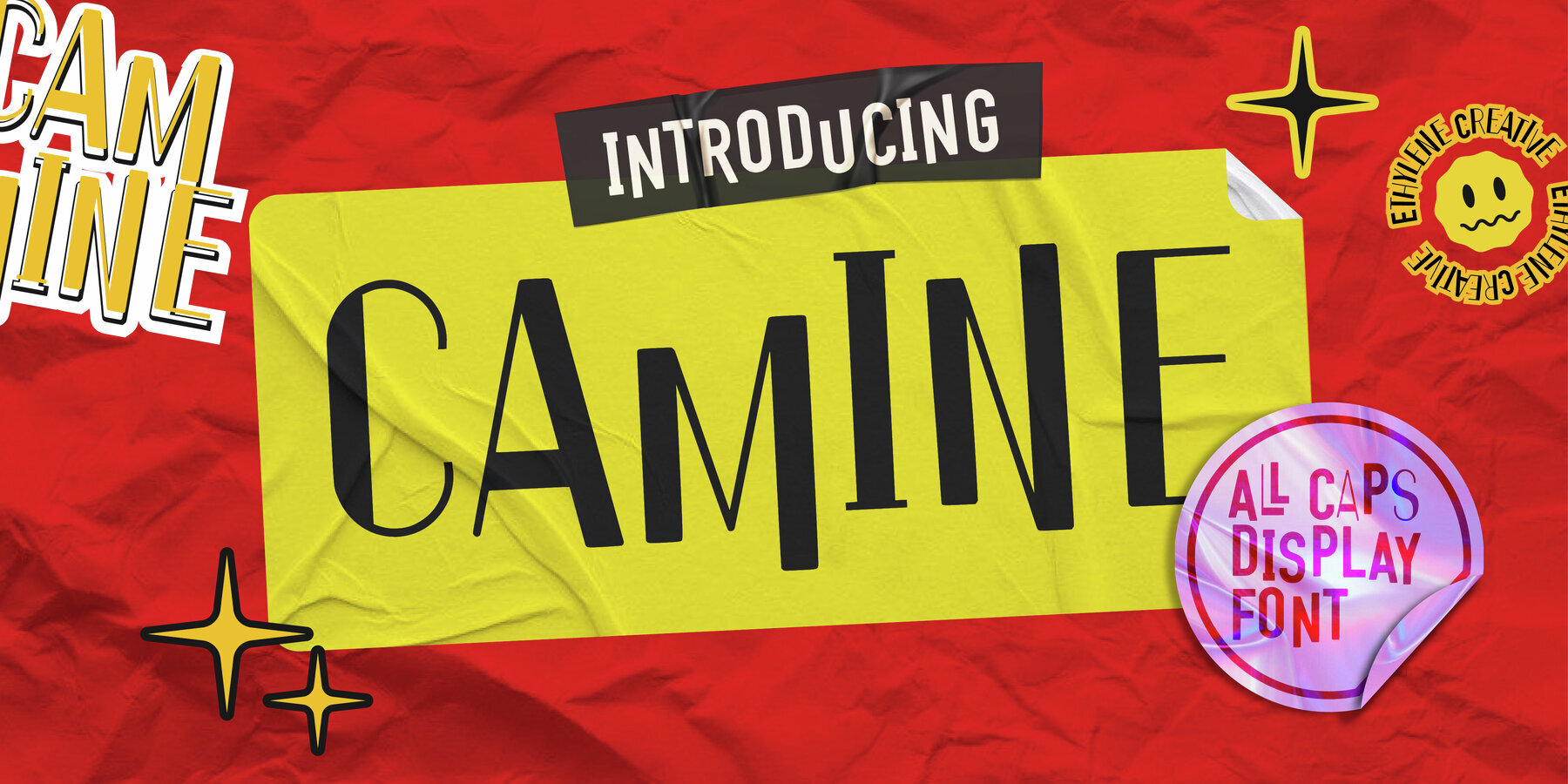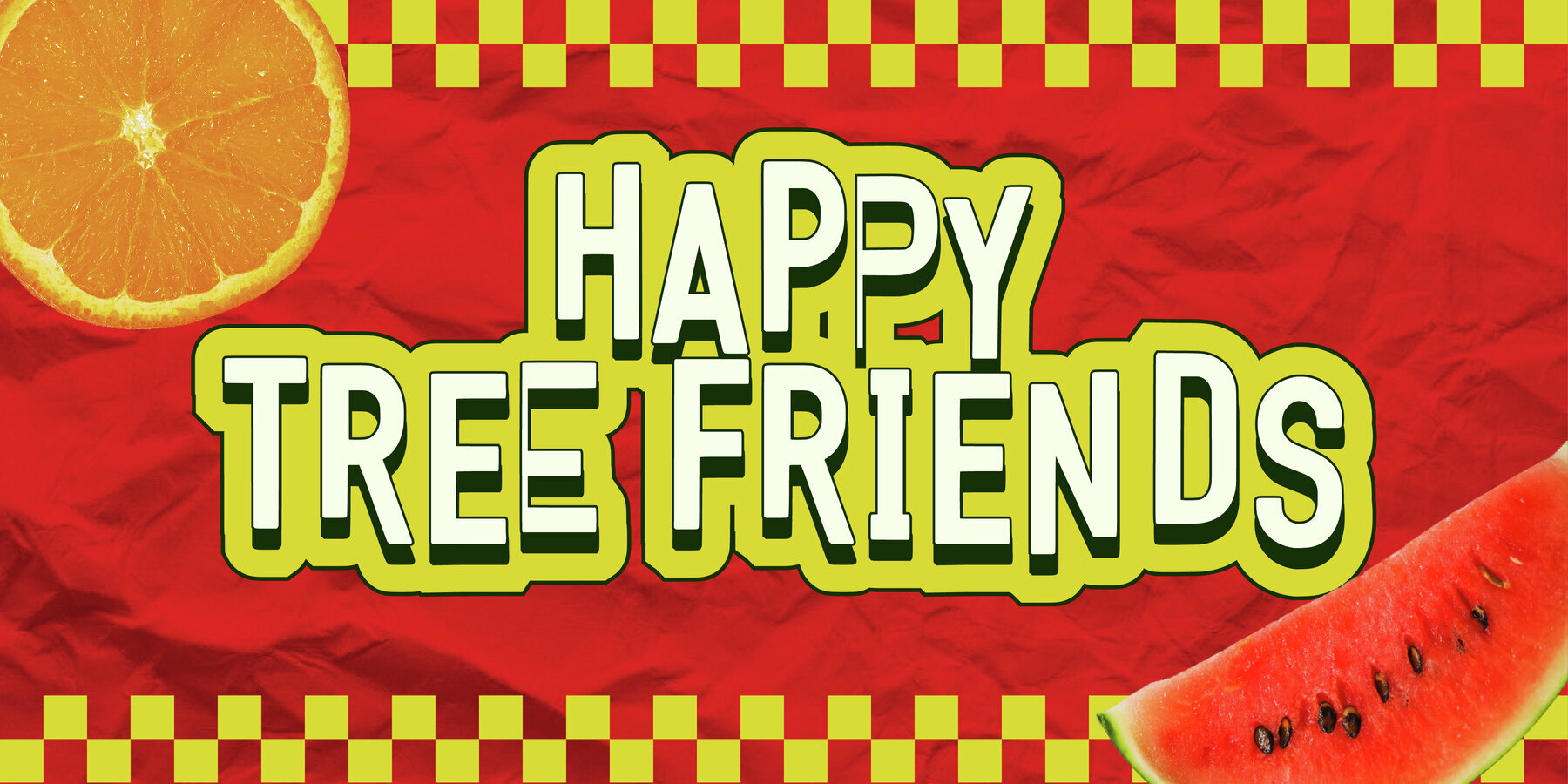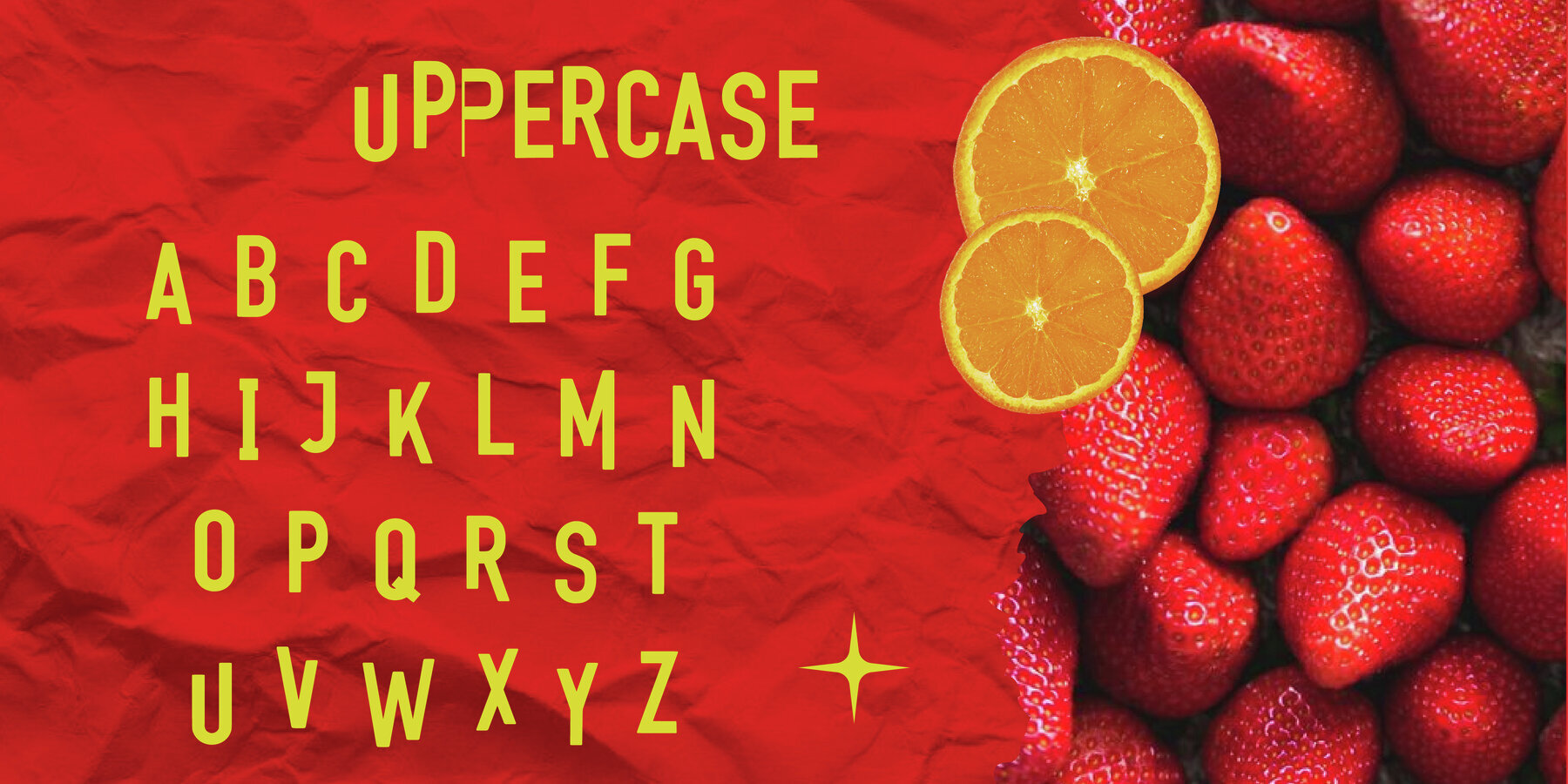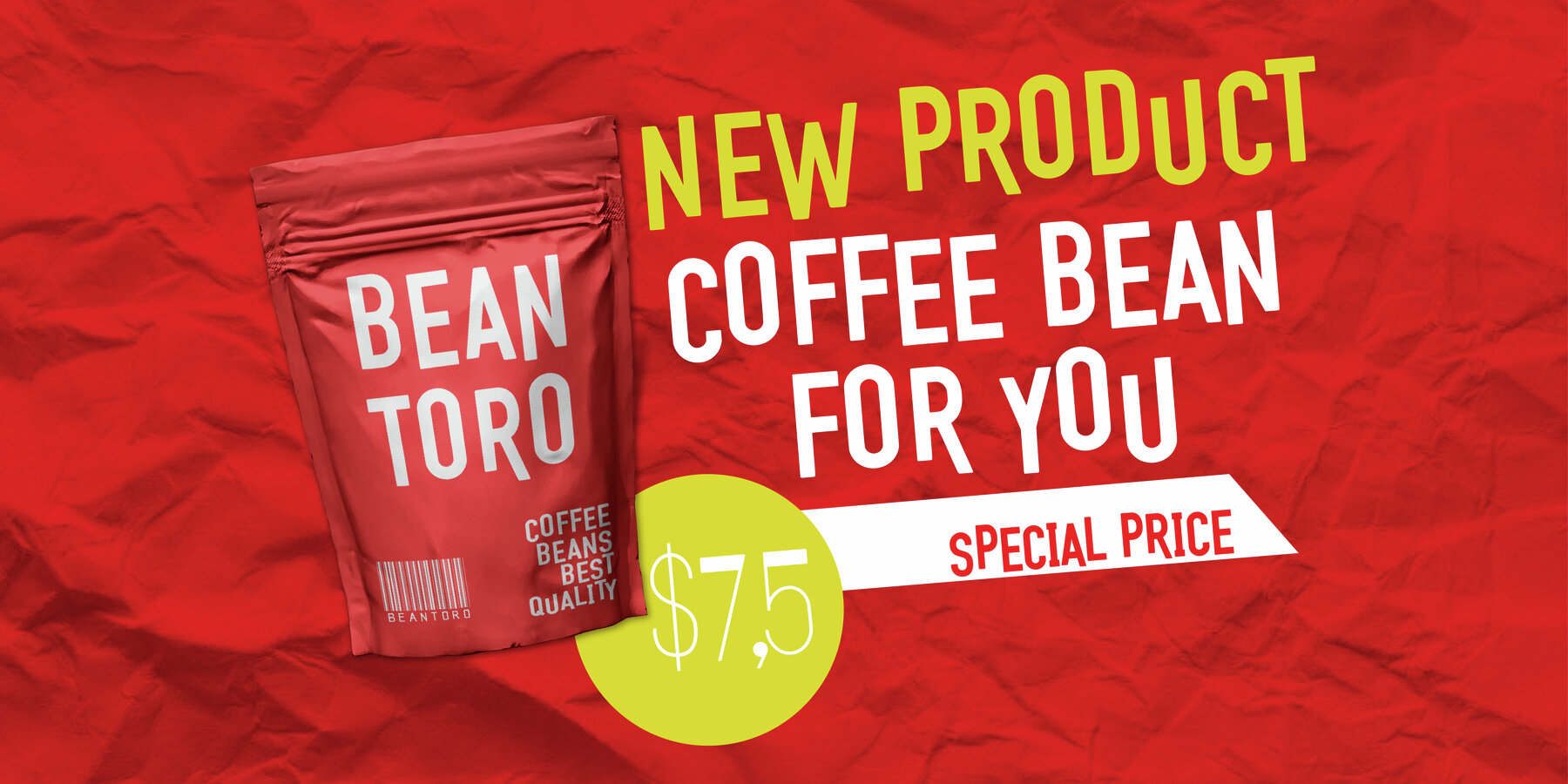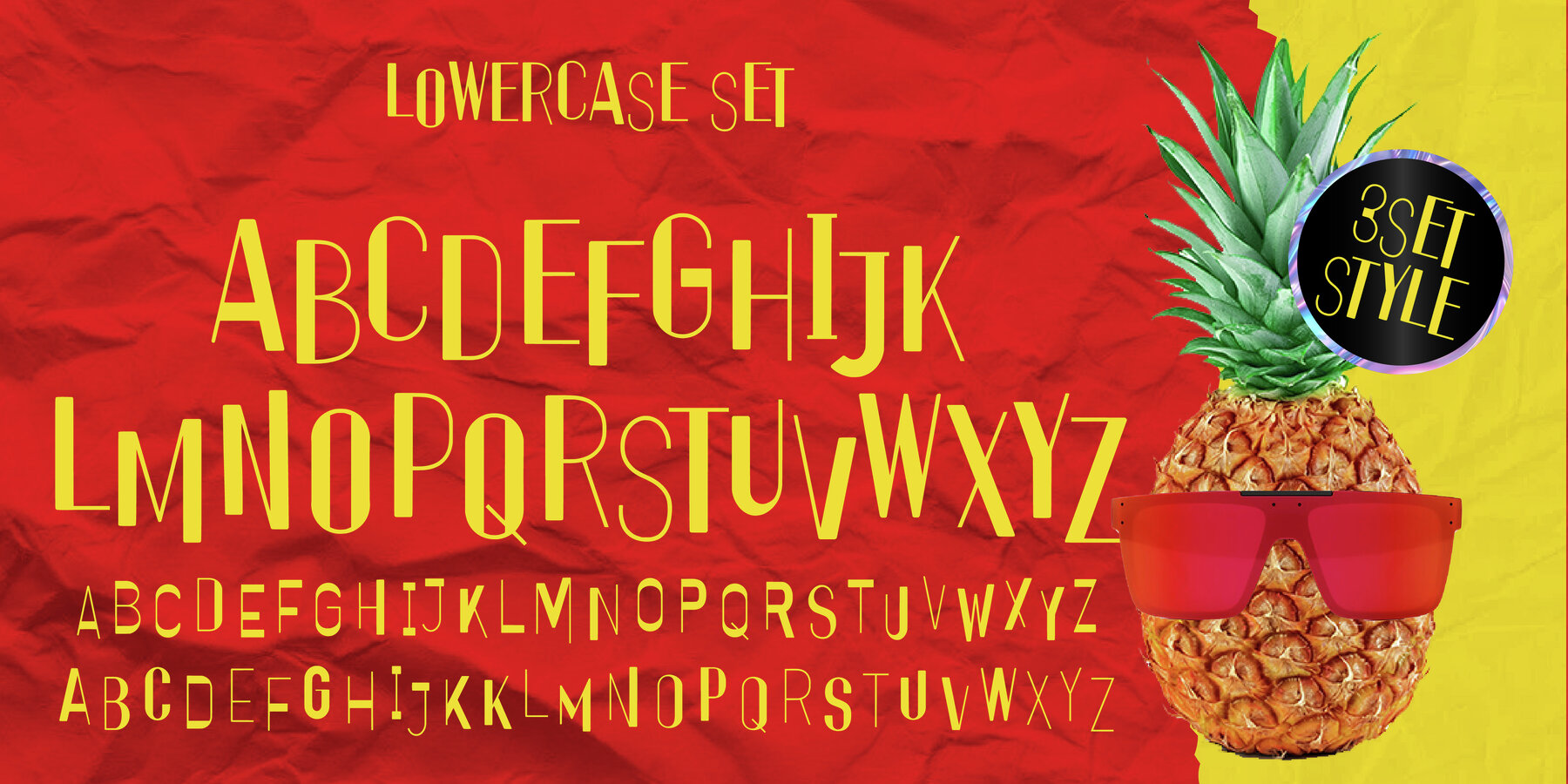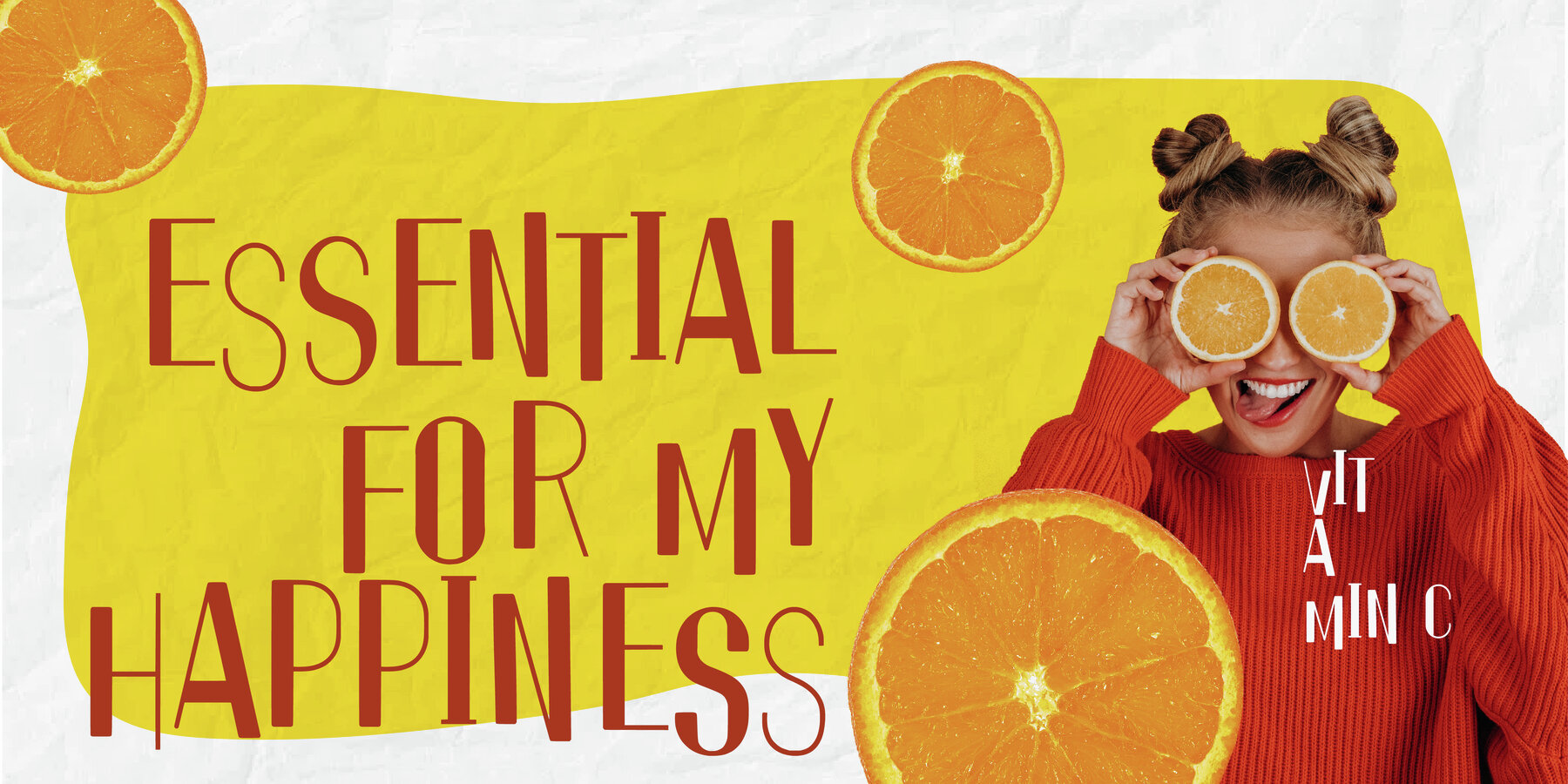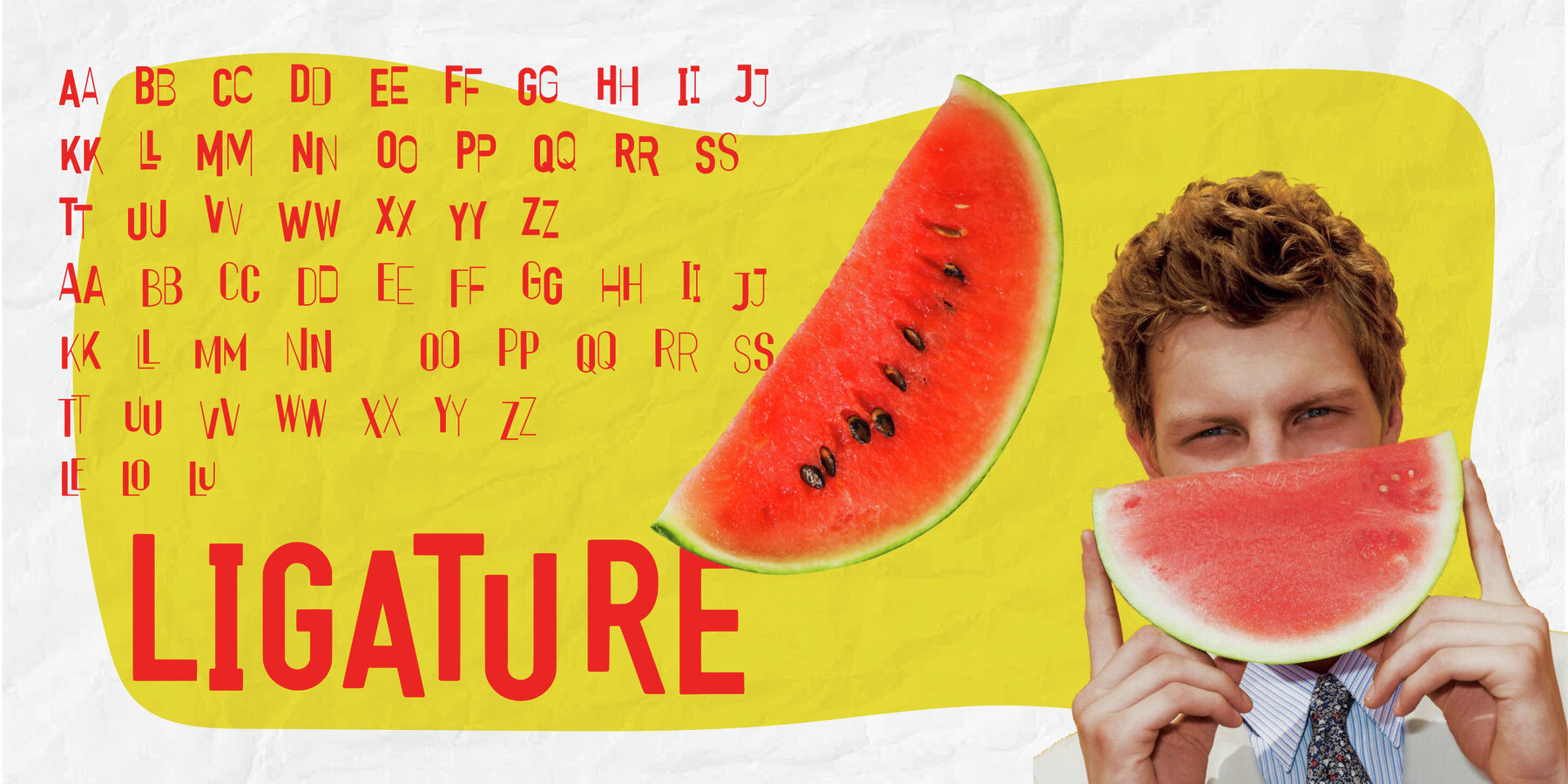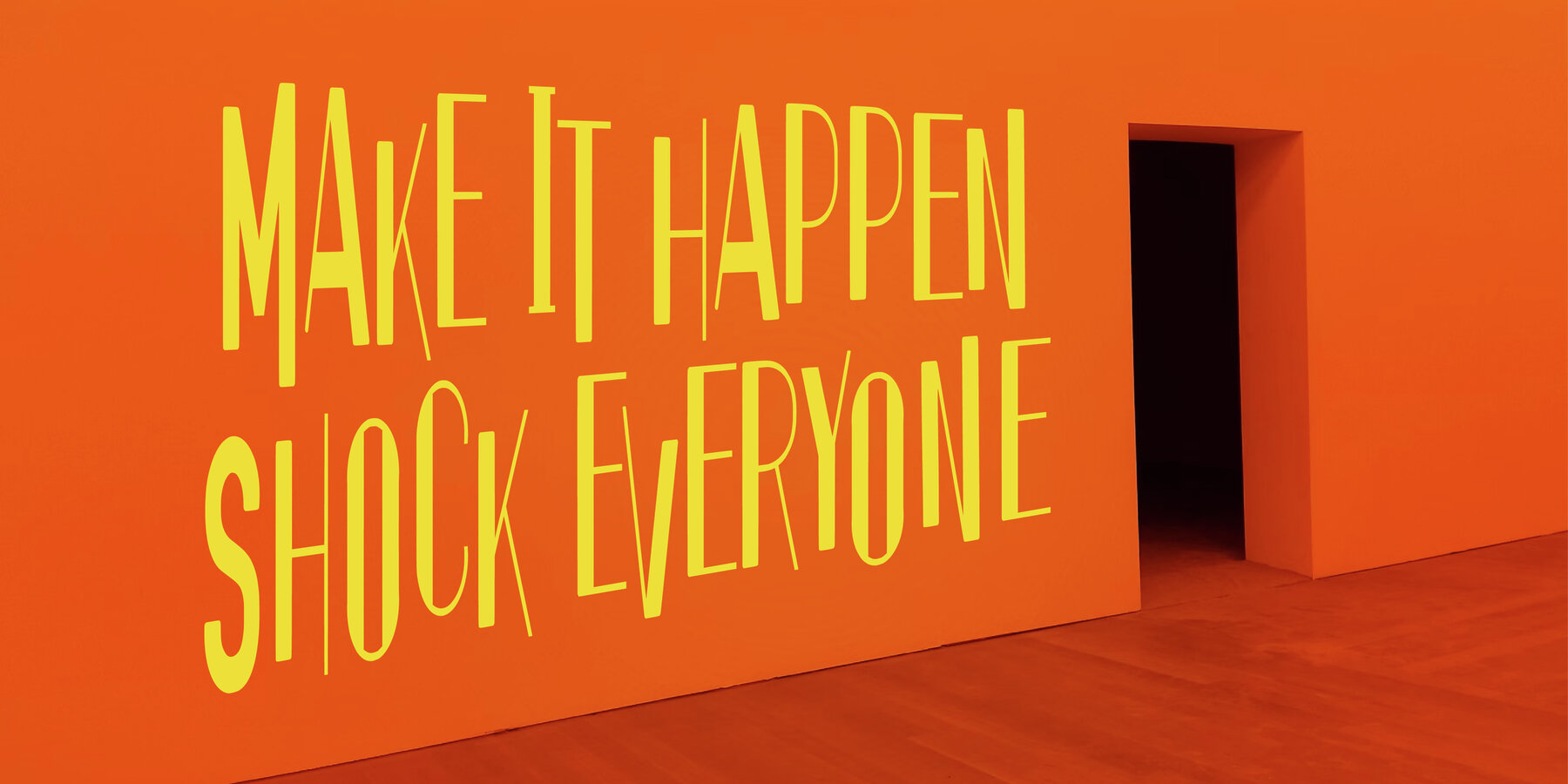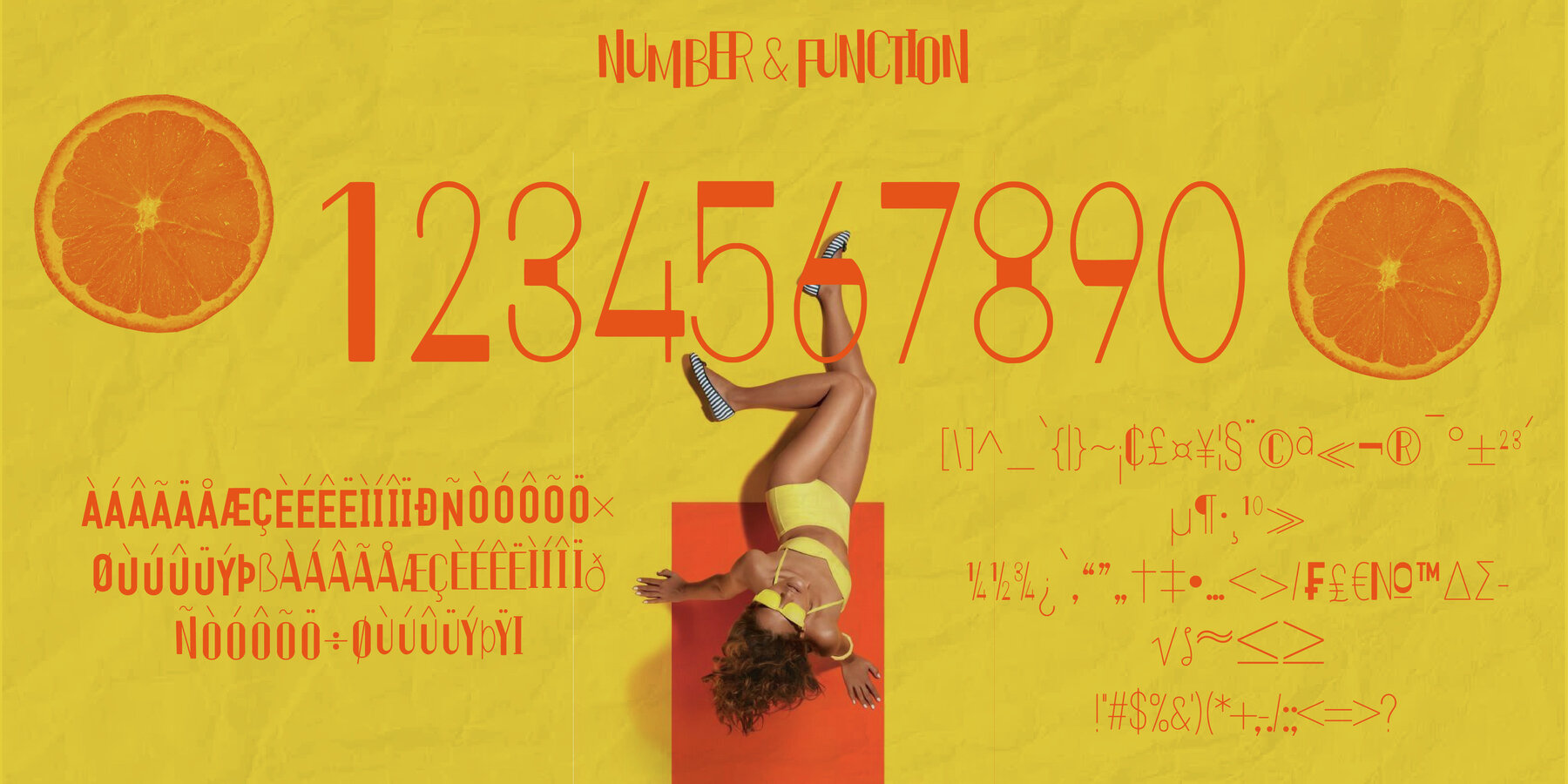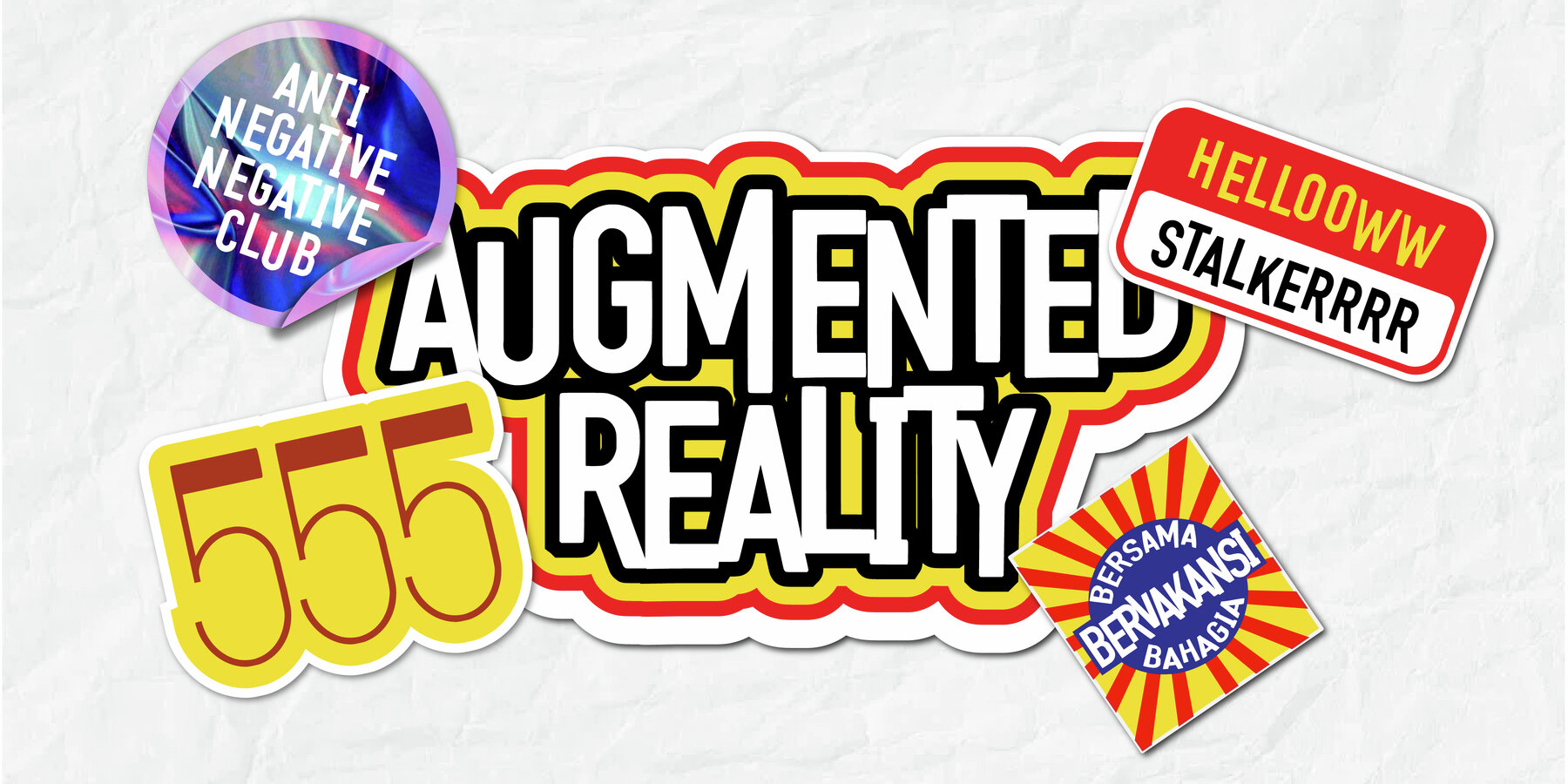
Camine Font
Camine
Camine is a distinctive sans serif font characterized by its bold contrast in thickness. Its unique bouncing style injects fun and dynamism into any design work. The font features ligatures and alternates, each designed with varying thicknesses to provide a natural, lively feel to every character.
Ideal for a myriad of applications, Camine is perfect for packaging design, labels, social media posts, book covers, and album covers, among other creative projects. Let your creativity flow and transform your designs with Camine's playful and energetic style.